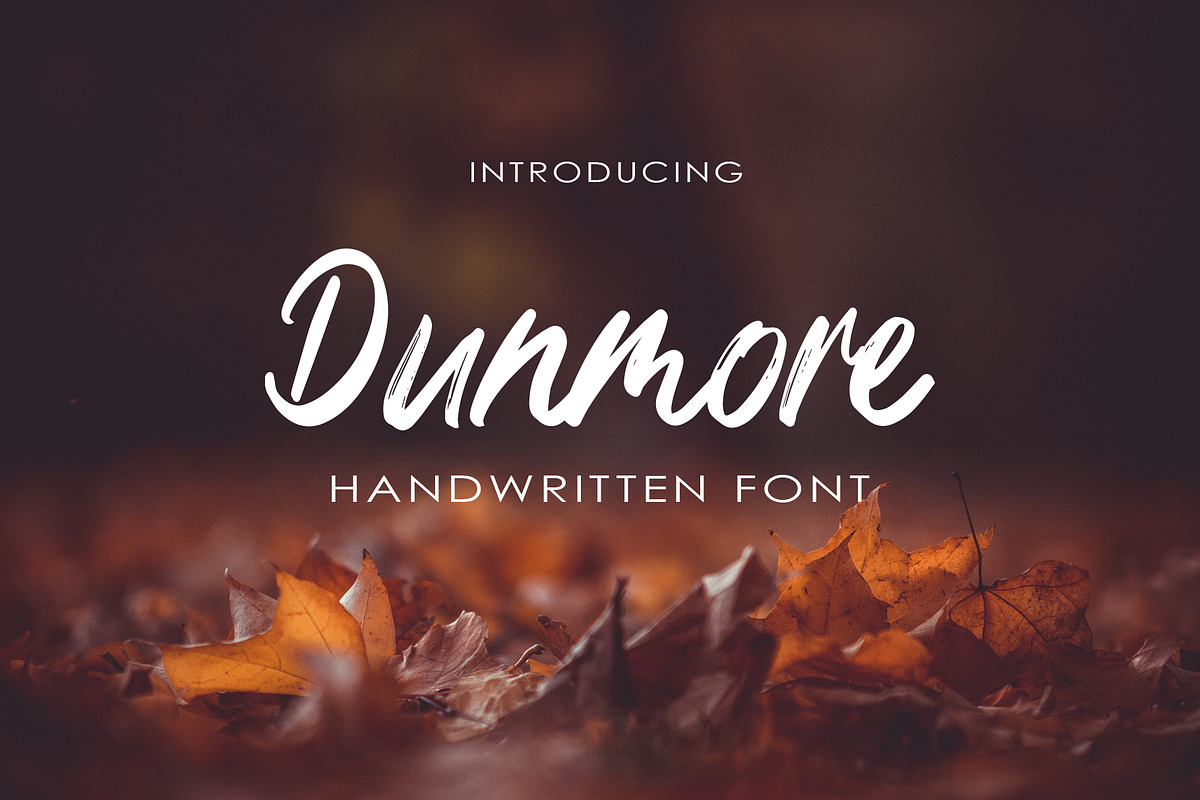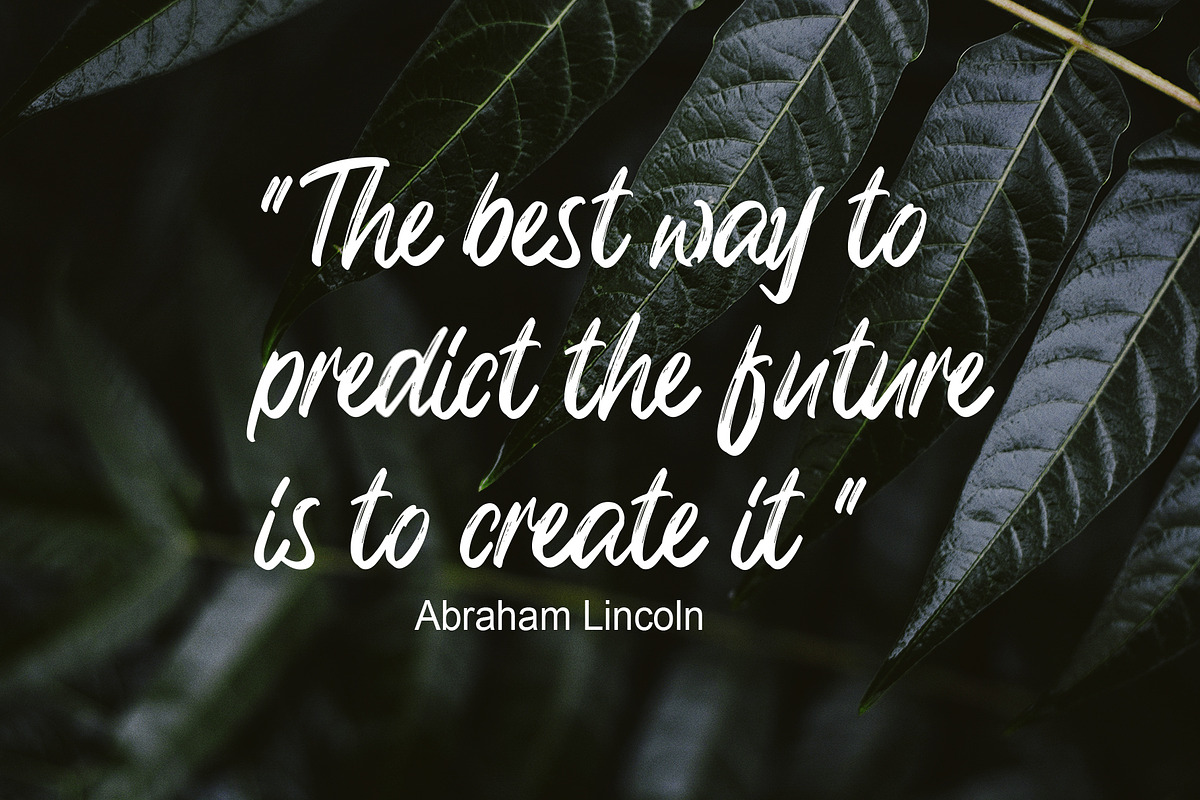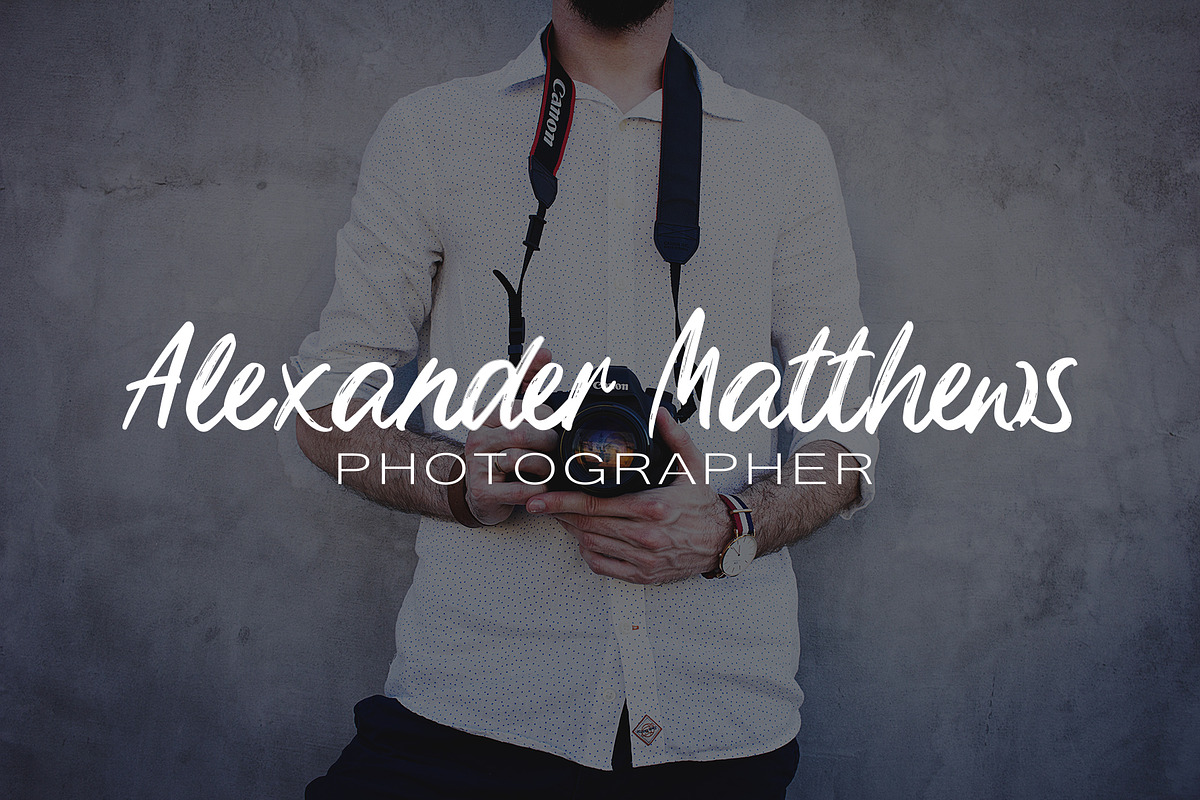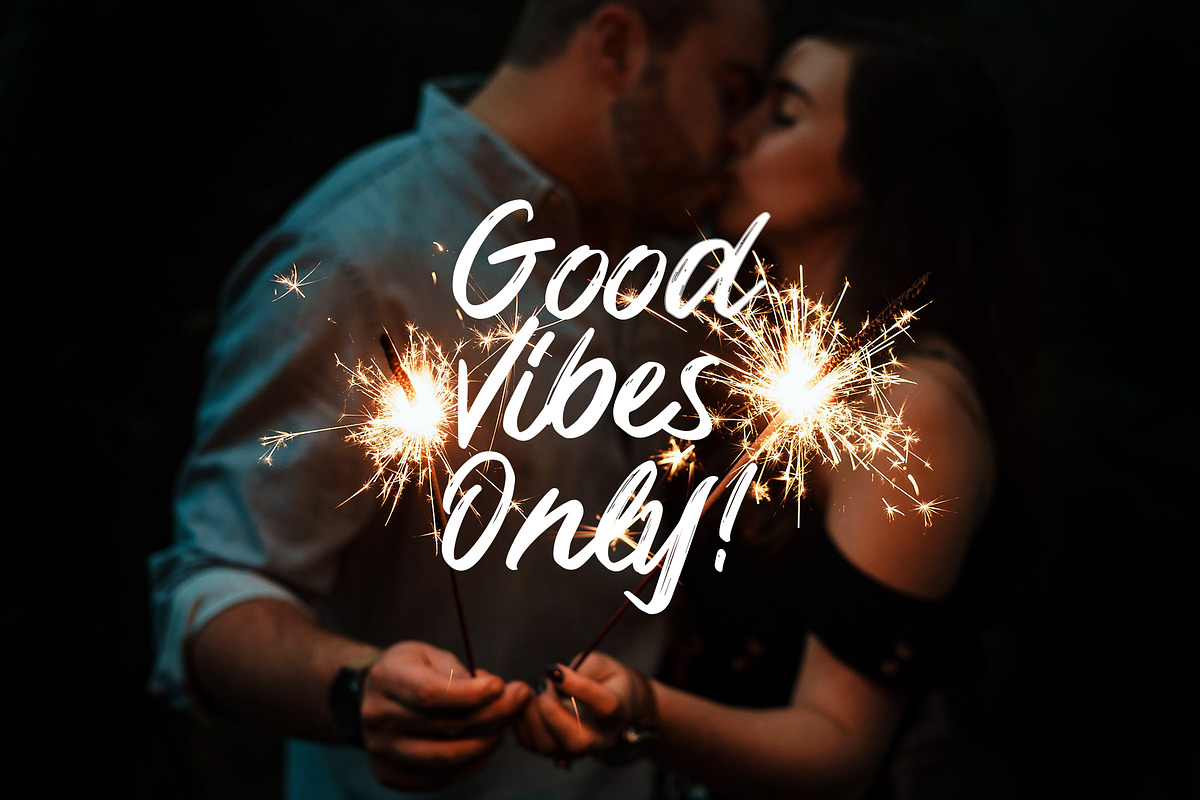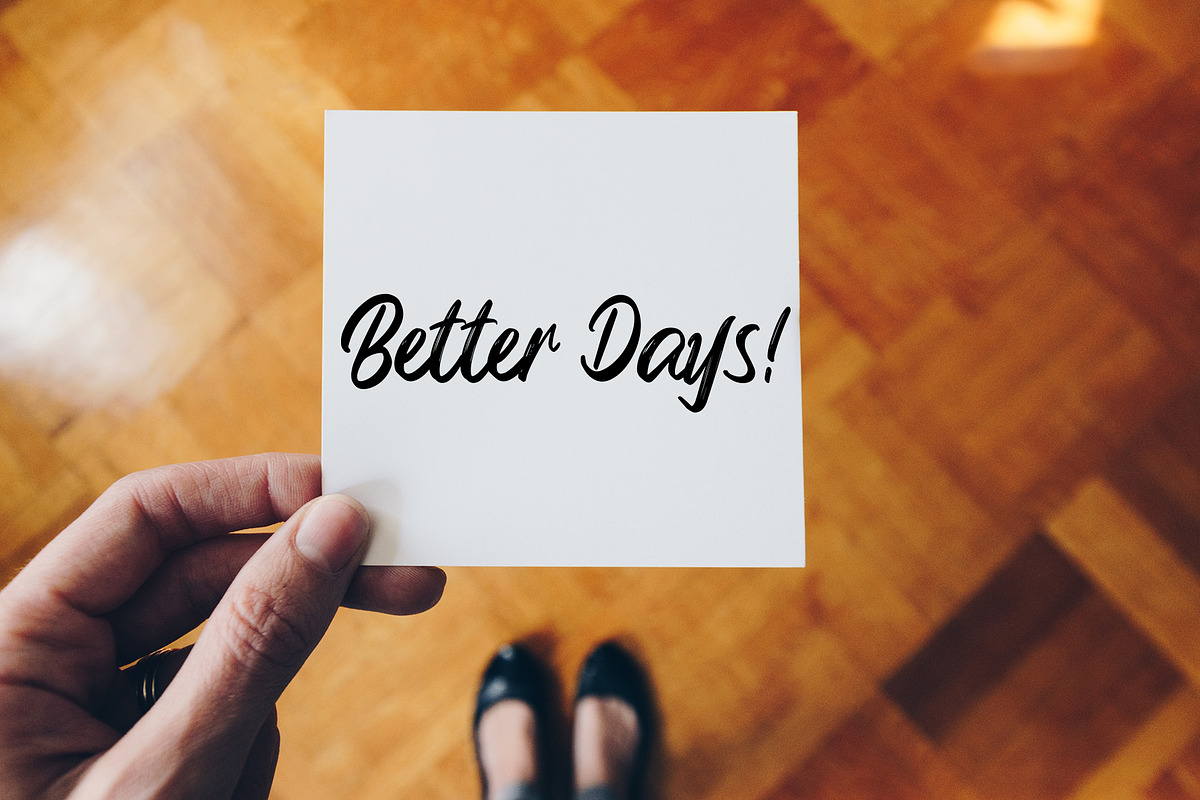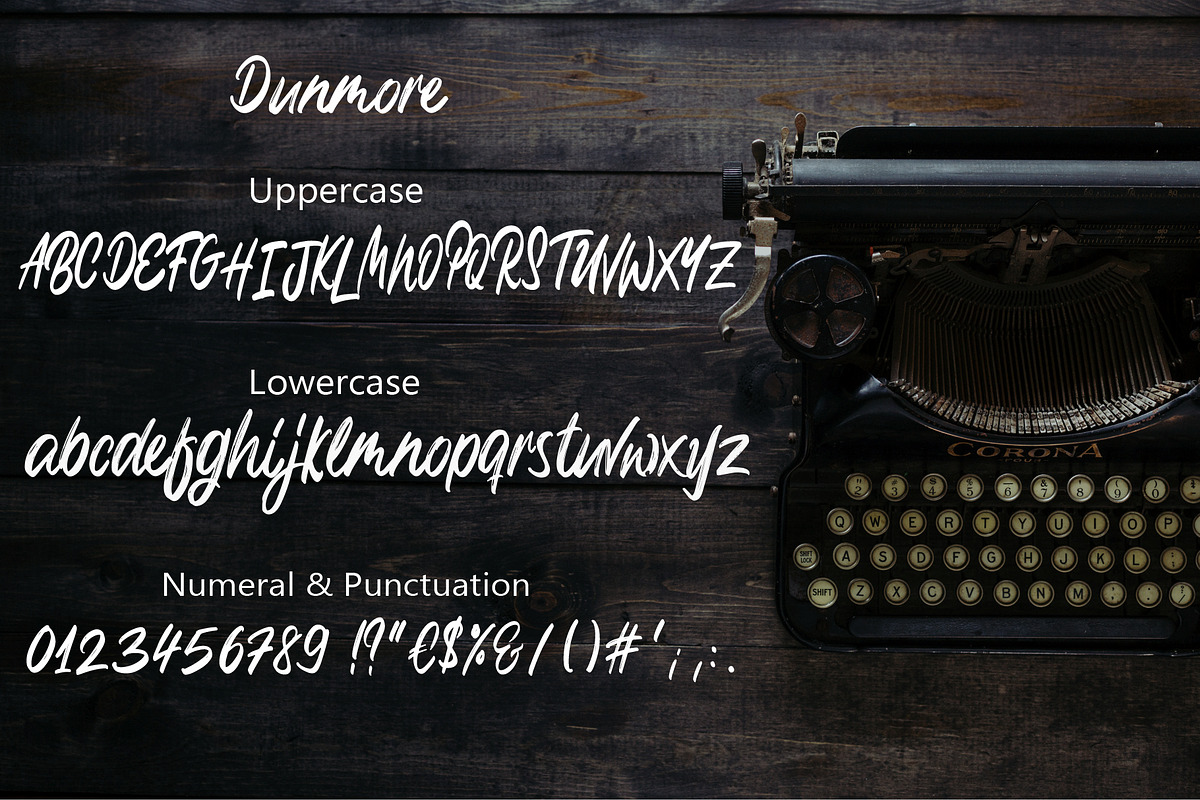
Dunmore Handwritten-Font
Say hello to my first script font:Dunmore!
It was made in my personal style and with some rough brush strokes! This font is perfect to create invitation cards, for branding, prints or simply as a text overlay to all kinds of background images.
uppercase & lowercase letters
numeral & punctuation